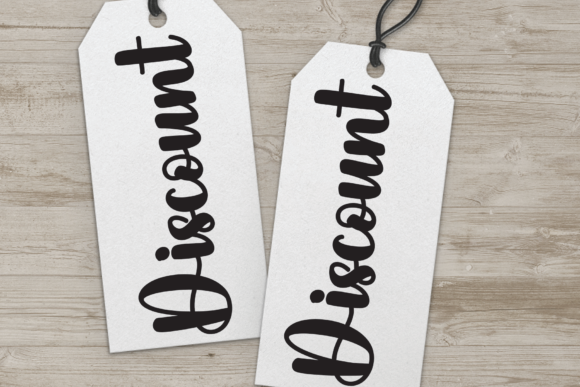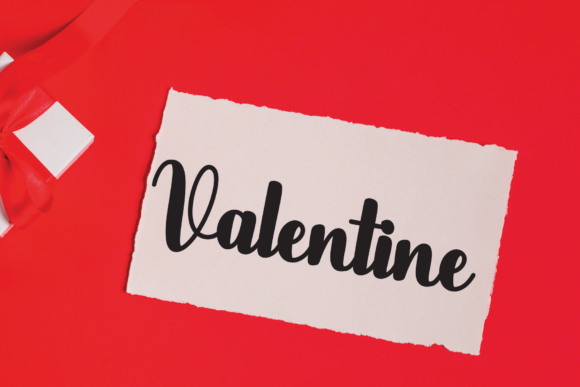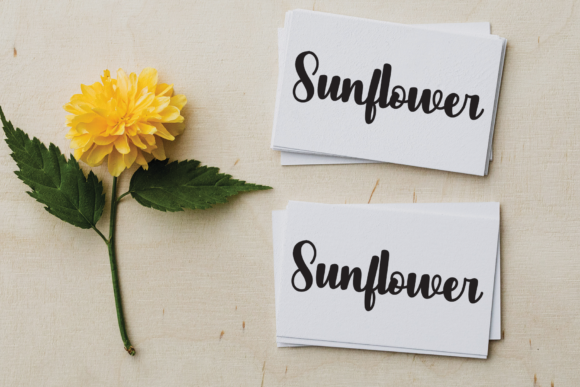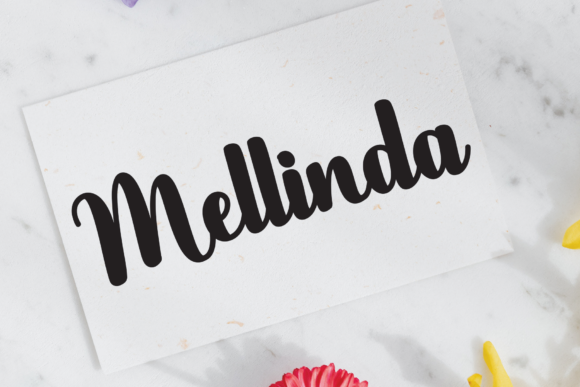
Introduction to Knitting Font
Do you remember the thrill of discovering that perfect design element for a project? The one that brings it all together and takes it to the next level? For designers, it’s a moment of pure joy, and it’s exactly what happens when you stumble upon the Knitting Font.
This beautiful, simple, and thin case script font is a design treasure trove, waiting to be unleashed on your next creative project. With its ravishing style, it’s perfect for creating gorgeous wedding invitations, stunning stationery art, engaging social media posts, and so much more. The best part? You can get your hands on this amazing font for free, making it a valuable addition to any designer’s toolkit.
Whether you’re working on a high-quality design project or simply looking for a unique design resource, the Knitting Font is an absolute must-have. Its transparent background and high-quality design make it a versatile tool that can be used in a variety of creative ways, from digital to print media.
Key Features of Knitting Font
- High-quality, vector-based design for seamless scalability and printability.
- Transparent background, allowing for easy customization and integration with various design elements.
- Comprehensive set of characters, including uppercase and lowercase letters, numbers, and special symbols, making it a versatile design resource.
- High-resolution design, ideal for use in large-scale projects, such as billboards, posters, and signage.
- Perfect for creative projects, including craft, DIY, and handmade designs, where a unique and eye-catching font is essential.
- Unique, hand-drawn design that captures the essence of knitting and crochet, making it an ideal choice for craft-related businesses and enthusiasts.
Honest Review: Knitting Font
As a designer, I’m always on the lookout for unique design resources that can elevate my creative projects. The Knitting Font caught my attention with its quirky, hand-drawn aesthetic. Upon closer inspection, I was impressed with the level of detail and precision that went into crafting this font.
- ✨ The font features a high quality, transparent background that makes it perfect for use on a variety of backgrounds.
- ✨ The Knitting Font is incredibly versatile and can be used for a wide range of creative projects, from branding and marketing materials to editorial and educational content.
While the Knitting Font is an excellent addition to any designer’s toolkit, there are a few limitations to consider. ⚠️ The font is not as extensive as some other font families, with only a limited number of styles and weights available.
Overall, I’m thoroughly impressed with the Knitting Font. Its unique aesthetic and high quality design make it a valuable resource for designers working on creative projects. Whether you’re a seasoned pro or just starting out, the Knitting Font is definitely worth checking out.
Tips for Getting the Most Out of the Knitting Font
Experiment with different font sizes, colors, and styles to create unique designs. Use the Knitting Font in combination with other design elements, such as images and graphics, to create visually appealing designs. The Knitting Font is a versatile design resource that can be used in a variety of creative projects.
Common Use Cases for the Knitting Font